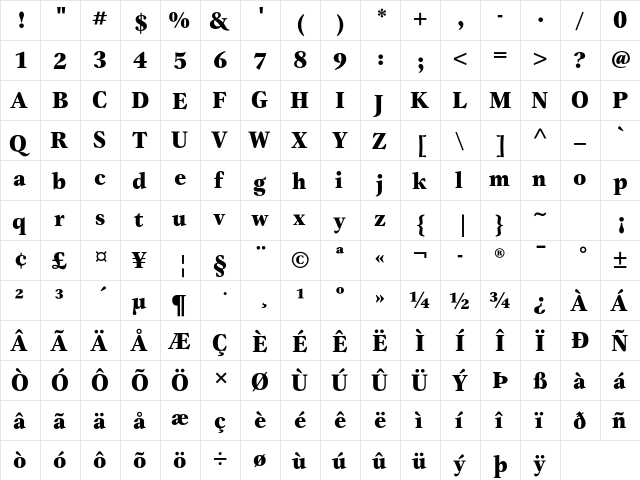
Gamma ITC Std Black
| Designer | Jovica Veljovic |
Design Context for Gamma ITC Std Typeface
Gamma ITC Std takes a measured approach to typography — its balanced proportions and neutral character make it a reliable workhorse for both digital and print work.
Pro Tip: Use Gamma ITC Std in both headline and body roles to test its range before committing to a single application.